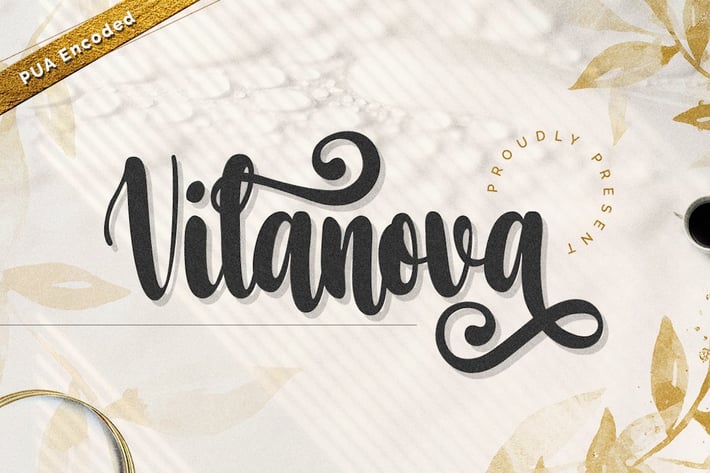
Vilanova Swash Calligraphy font
Vilanova Swash Calligraphy font that inspires friendliness and elegance. It is perfect to use for any of your wonderful creations such as branding projects, logos, brochures, business cards, wedding invitations, and many others! This font is PUA encoded which means you can access all of the glyphs and swashes with ease!